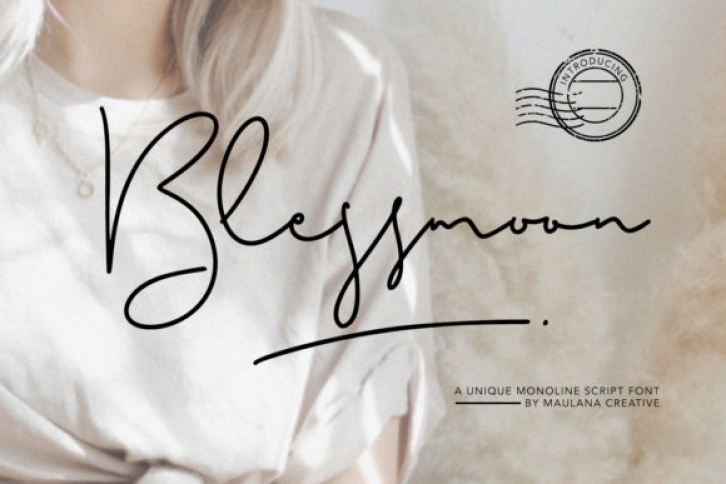
Blessmoon is a stylish and delicate handwritten font. It has a clean, thin and smooth vibe and it will be a hit for any design that you want to add it to.